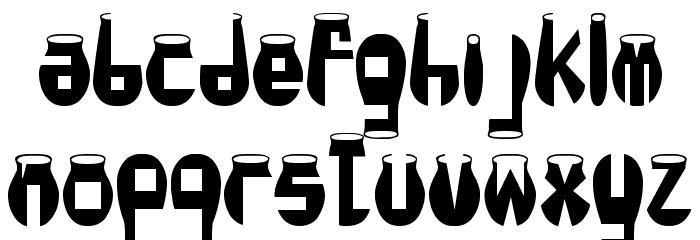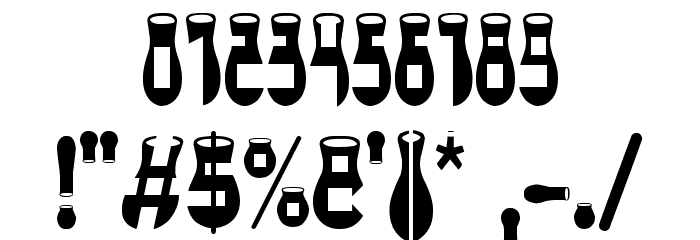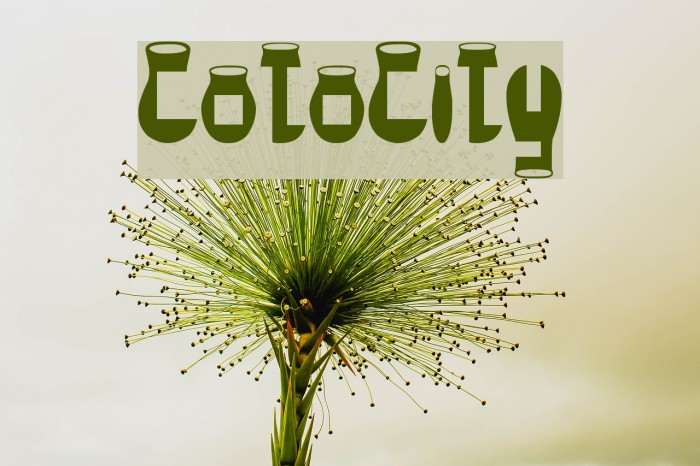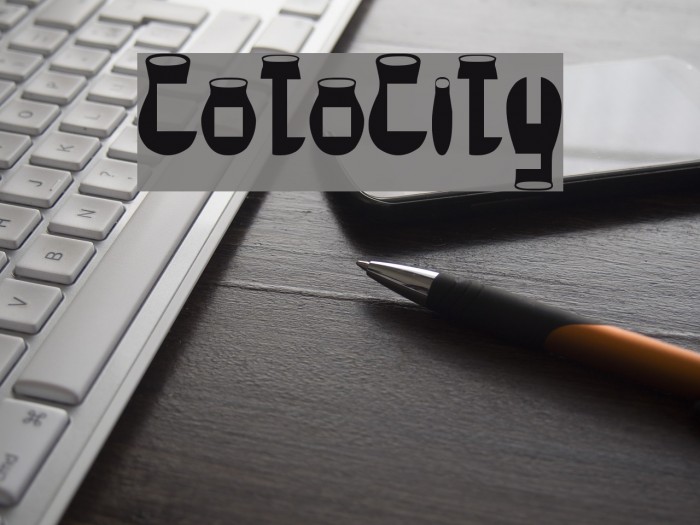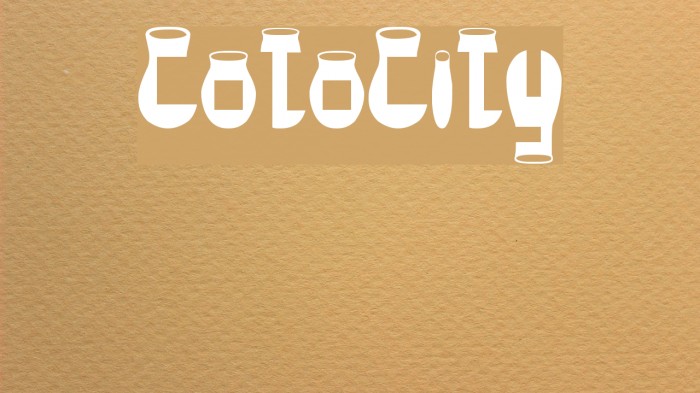
CotoCity Font
This font features a bold and playful design, characterized by its unique bottle-like shapes at the top of each letter. The characters are thick and rounded, with a distinct contrast between the wide lower sections and narrow upper sections. The uppercase and lowercase letters maintain a consistent style, creating a cohesive look. Numbers and special characters are designed with the same playful aesthetic, making them stand out. The font's overall appearance is both modern and whimsical, making it suitable for creative and eye-catching designs.
A bold, playful font with bottle-like shapes and a whimsical style.
- Proposed Projects: Ideal for children's book covers, playful branding, creative posters, and unique logo designs.
- Overall Style: Modern, Whimsical